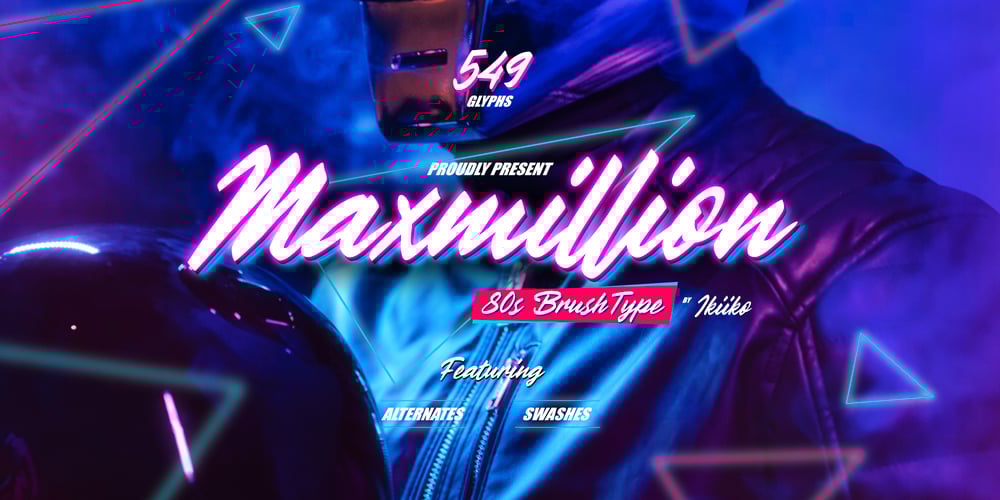
Maxmillion
Maxmillion font
Maxmillion Font Family was designed by Wahyu Eka Prasetya, Andhika Pradana and published by IKIIKOWRK. Maxmillion contains 1 styles and family package options. Proudly present Maxmillion – 80’s brush type, created by ikiiko.A expressive handwriting type with a modern and wild shape used 80’s vibes. This type is very suitable for making a posters, t-shirt design, neon sign, party flyer, quotes, or simply as a stylish text overlay to any background image.What’s Included? Uppercase & Lowercase Numbers & Punctuation Complete Alternates & Swashes Multilingual Support Get also a good offer & FREEBIE at our site : www.ikiiko.comEnjoy our font and if you have any questions, you can contact us by email : ikiikowrk@gmail.com